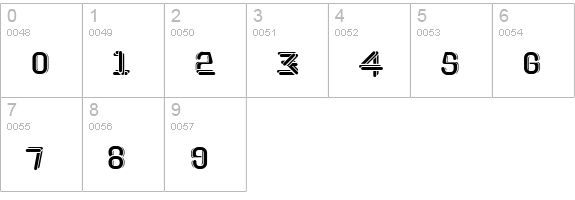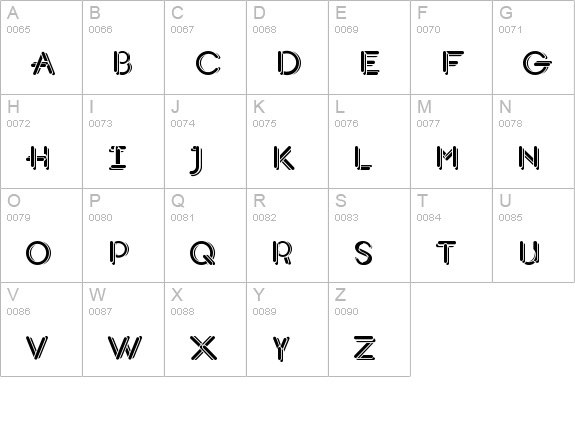
JohanVaaler SolidBold Font Details
Introducing JohanVaaler SolidBold, a strikingly bold and visually captivating font that is guaranteed to make your designs stand out from the crowd. With its strong and solid appearance, this font exudes confidence and power, making it perfect for attention-grabbing headlines, posters, logos, and more. JohanVaaler SolidBold features clean lines and sharp edges, adding a modern and contemporary touch to any design project. Its bold and assertive nature allows for clear readability even at smaller sizes, ensuring that your message is conveyed with utmost clarity. But what makes JohanVaaler SolidBold truly special is that it is not only stunning and versatile, but also completely free. Yes, you read it right! This incredible font is freely available to download at FontsMarket.com. With just a few clicks, you can enhance your creative endeavors without any cost. Whether you are a professional designer, a student, or simply someone with a passion for typography, JohanVaaler SolidBold is the perfect addition to your font collection. Its versatility allows it to be seamlessly integrated into various design projects, from digital platforms to print media. So don't miss out on the opportunity to elevate your designs with this remarkable font. Download JohanVaaler SolidBold today, and let your creativity soar to new heights. Visit FontsMarket.com and experience the freedom of obtaining this stunning font free of charge.